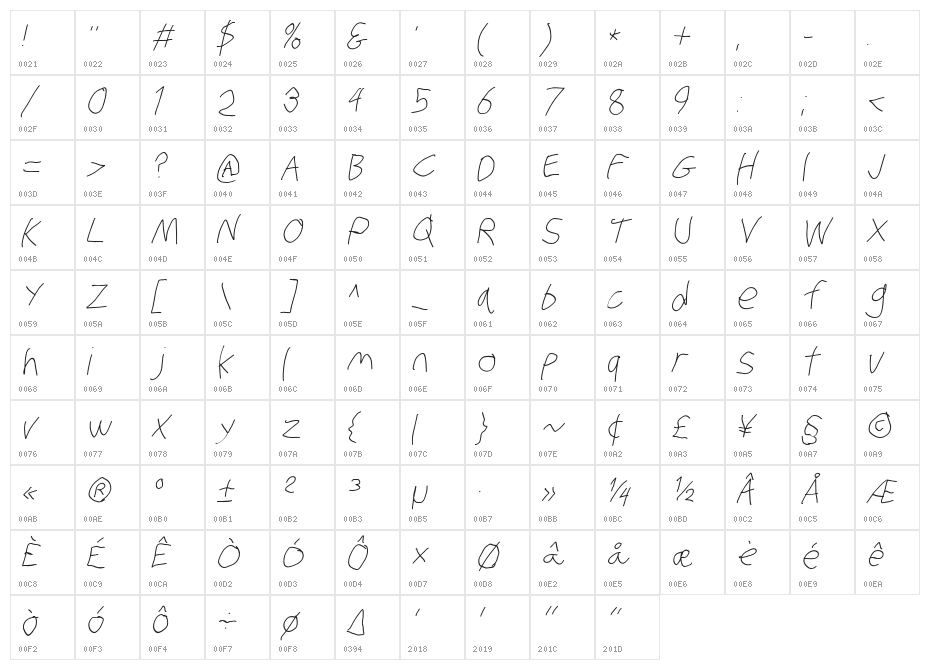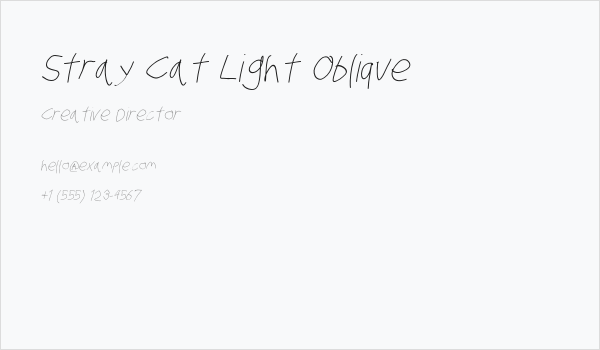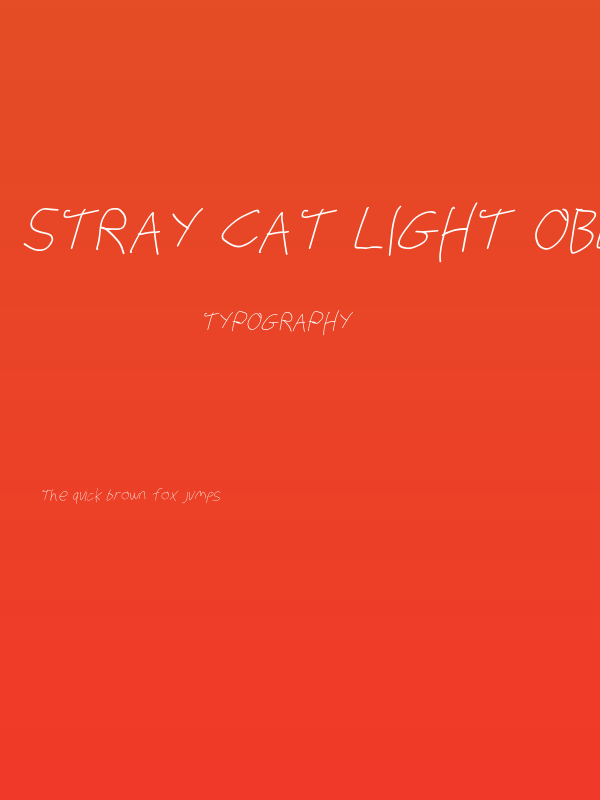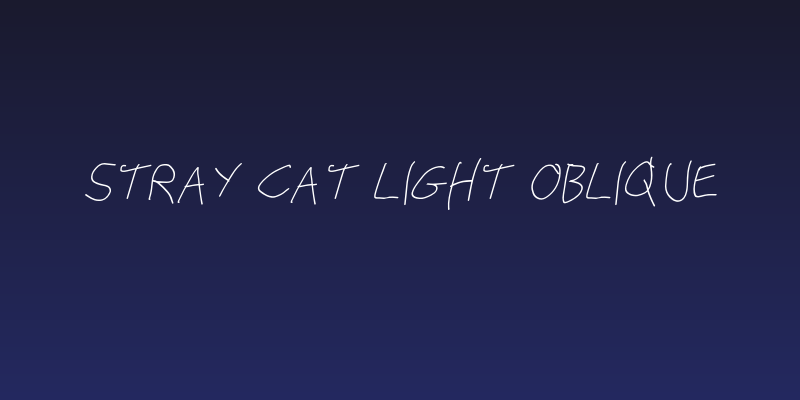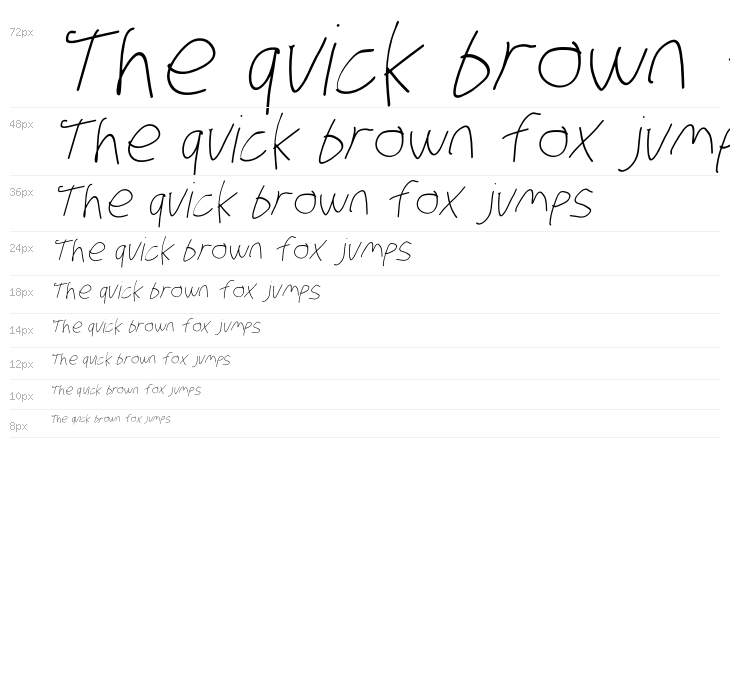
Stray Cat Light Oblique Font
Stray Cat Light Oblique Description
This font features a playful and casual handwritten style, characterized by its light and oblique strokes. The letters are slightly slanted, giving a dynamic and informal feel. The strokes are thin and consistent, providing a sense of lightness and airiness. Each character is uniquely crafted, maintaining a natural flow that mimics real handwriting. The font includes a full set of uppercase and lowercase letters, numerals, and a variety of special characters. Its overall appearance is friendly and approachable, making it suitable for projects that require a personal touch.
| Use Case | Greeting cards, Personal notes, Casual branding |
| Proposed Projects | Ideal for personal notes, greeting cards, casual branding, and creative projects that require a handwritten touch. |